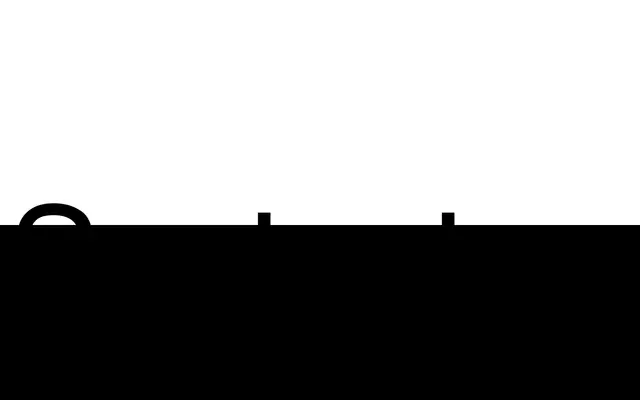
Syntact
A geometric, industrial monospaced sans in five weights, built with no contrast, narrow proportions and angled terminals across 627 glyphs.
Syntact is a narrow, monospaced geometric sans with a brutalist sensibility, offering five styles from Thin to Bold with no stroke contrast and distinctive angled terminals. The family covers Basic Latin and Extended Latin across more than 100 languages, and includes tabular lining figures alongside superscript, subscript and fraction variants for technical and editorial setting. Five stylistic sets allow further customisation, including single-storey alternates and a variant y.
Described explicitly as a geometric, industrial monospaced sans-serif with no contrast, narrow width, and angled terminals. The monospaced nature and geometric construction place it firmly in the geometric sans category with monospaced characteristics.